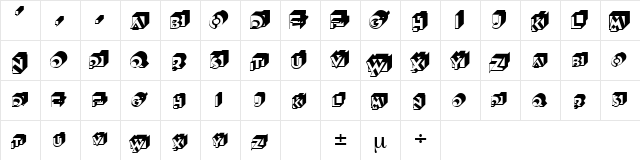
Leggo 1 Regular
Design Context for Leggo 1 Typeface
Leggo 1 is a composed and adaptable typeface that performs quietly and consistently across a wide range of design contexts.